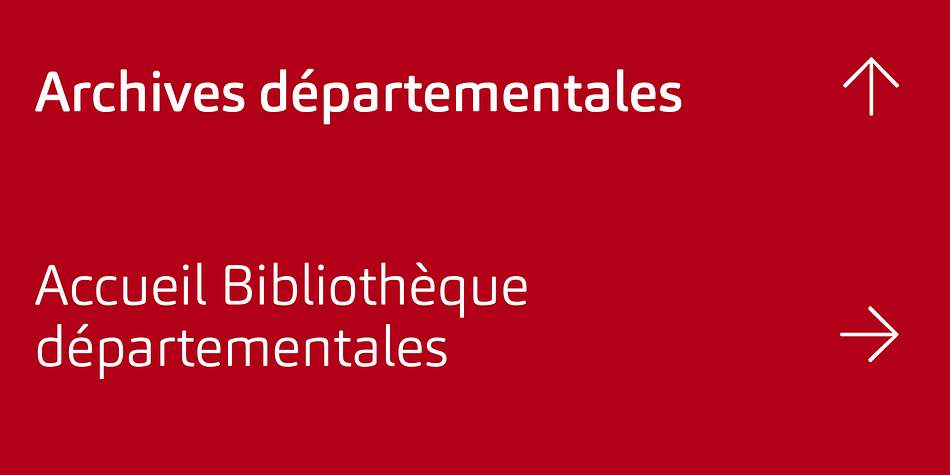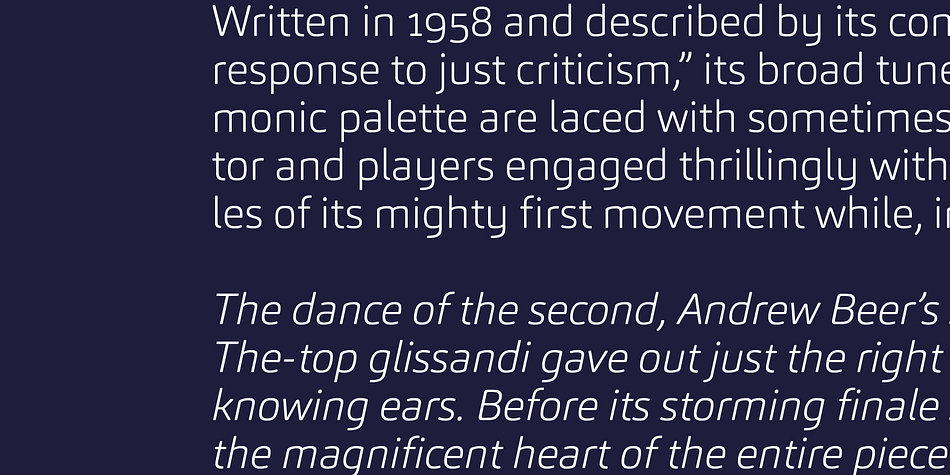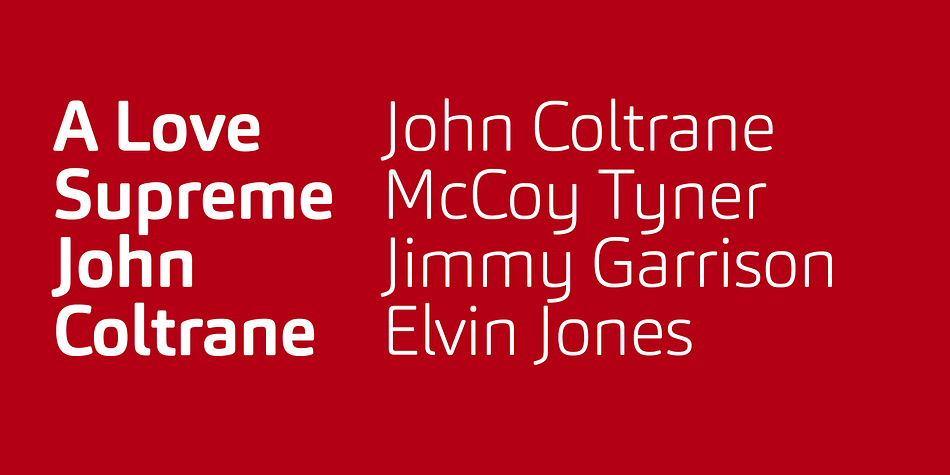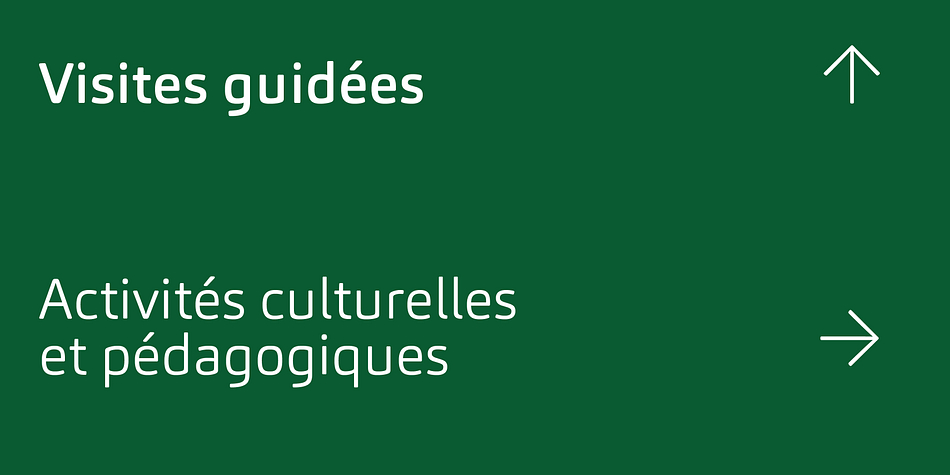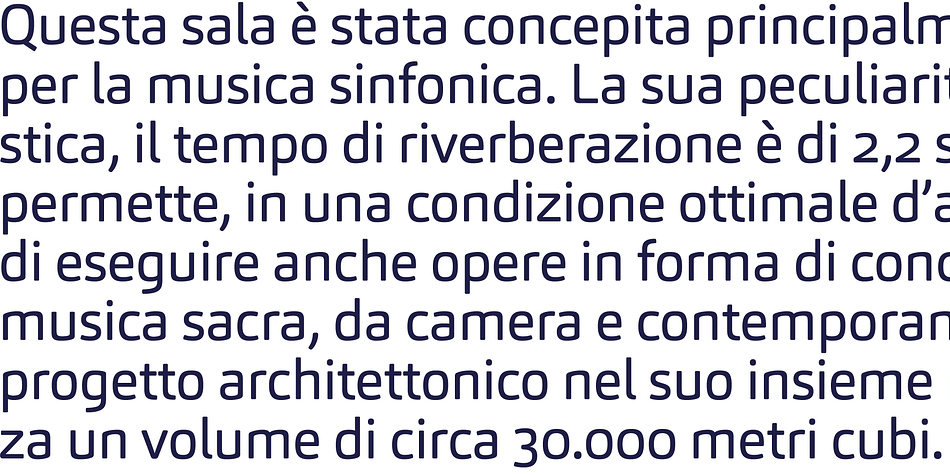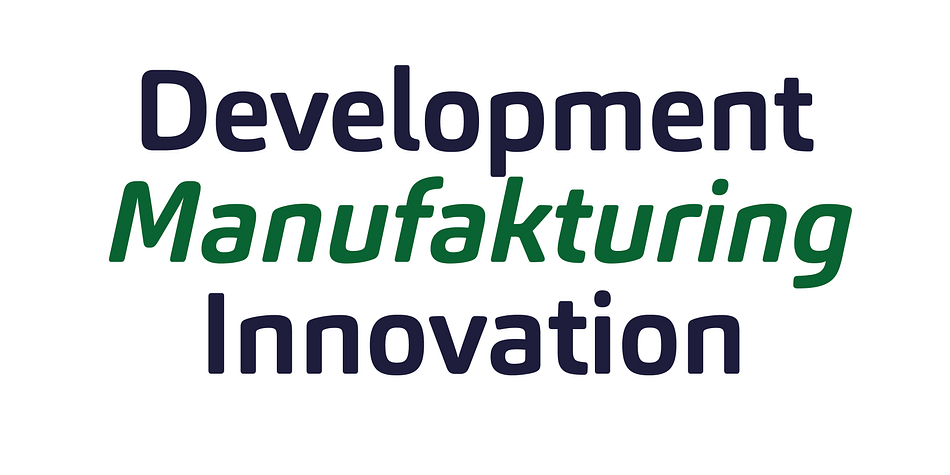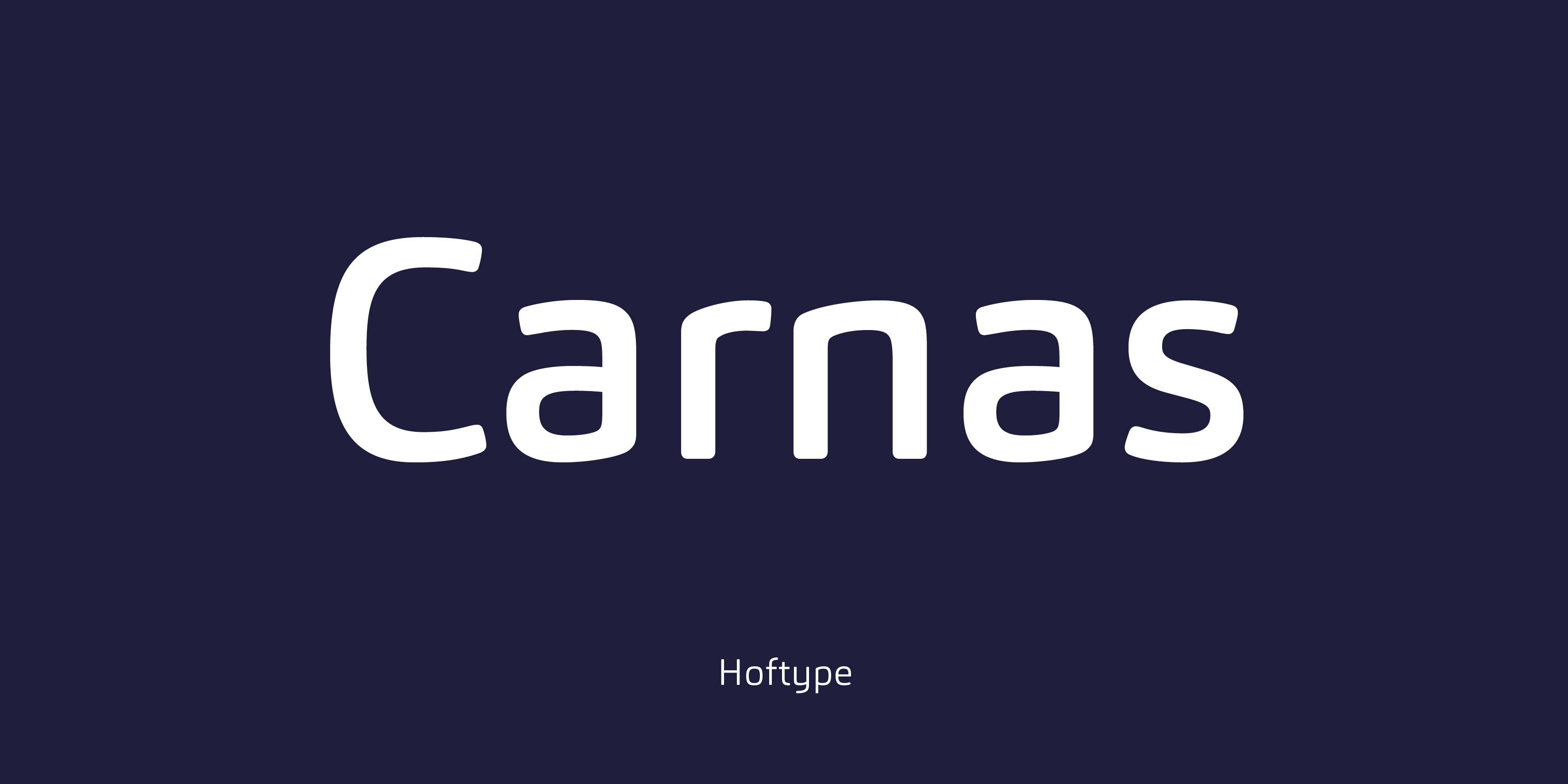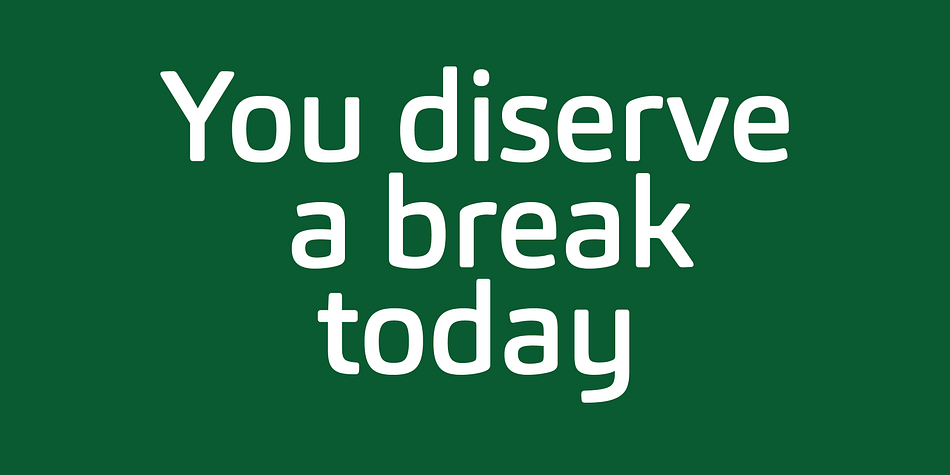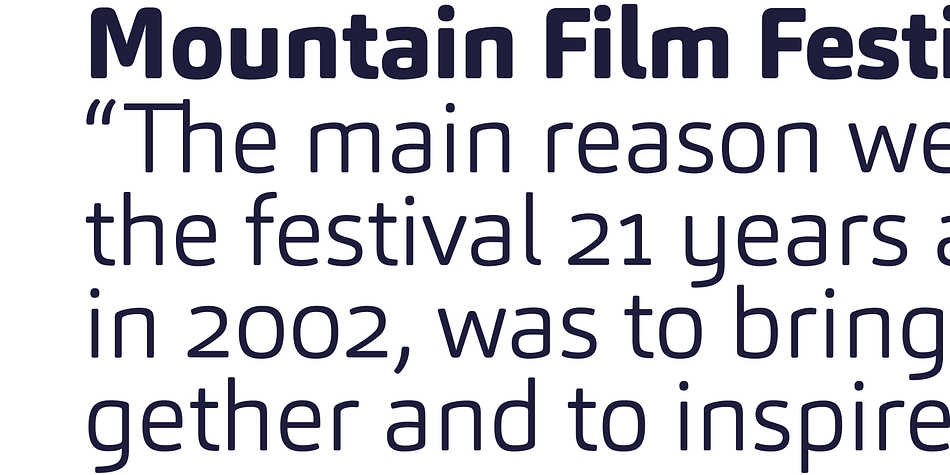
Carnas is a sans serif font family. This typeface has sixteen styles and was published by Hoftype.
Carnas, a new monoline sans with a light, slender and informal appearance. It is however forceful and strong enough for headlines and signage. Despite the reduction in its shapes, it is pleasantly readable for both shorter and longer text applications.
The Carnas family consists of 16 styles and is well suited for ambitious typography. It comes in OpenType format with extended language support. All weights contain ligatures, superior characters, proportional lining figures, tabular lining figures, proportional old style figures, lining old style figures, matching currency symbols, fraction- and scientific numerals and matching arrows.